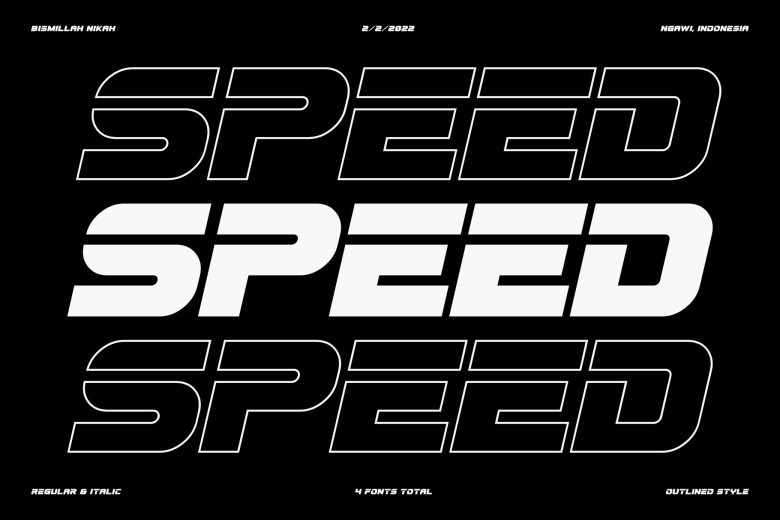
Speed Fez Font
Speed Fez is a bold and heavy display font. The font is suit for any branding project like logo, t-shirt printing, sporting design, and many more. It will look assertive in a wide range of contexts.
Speed Fez Display Font